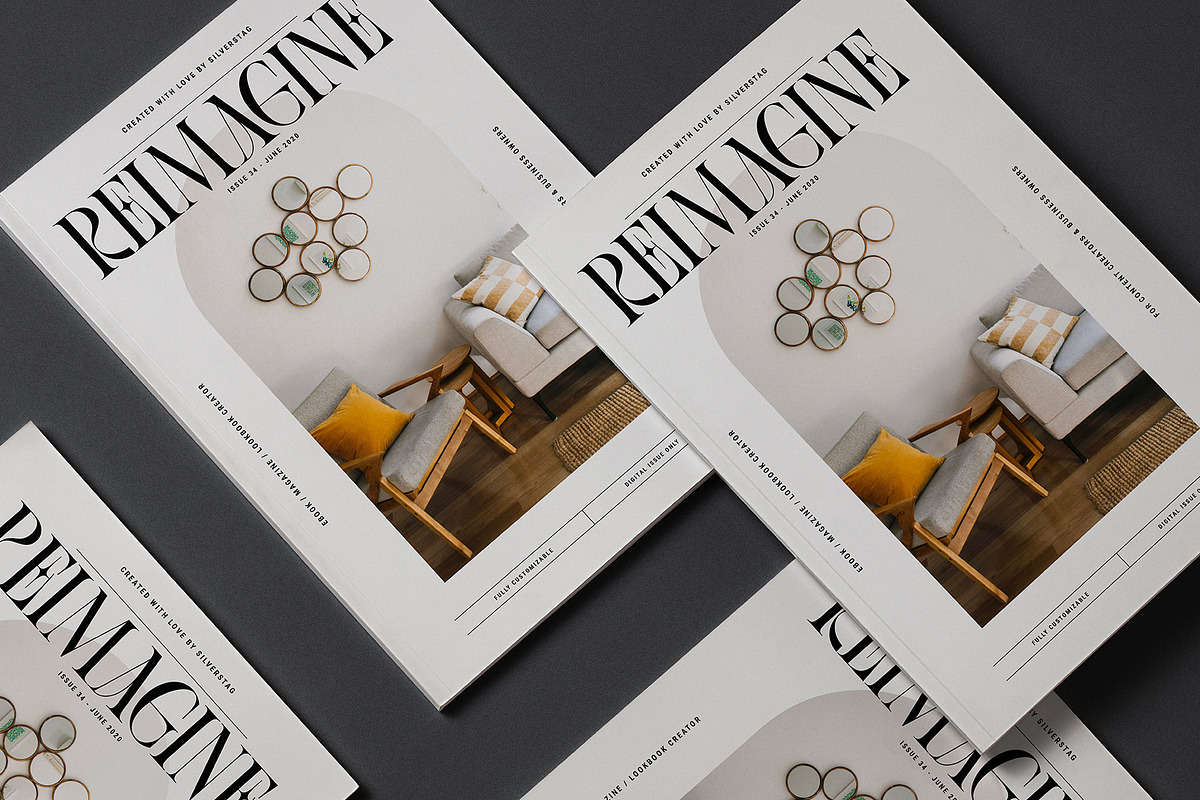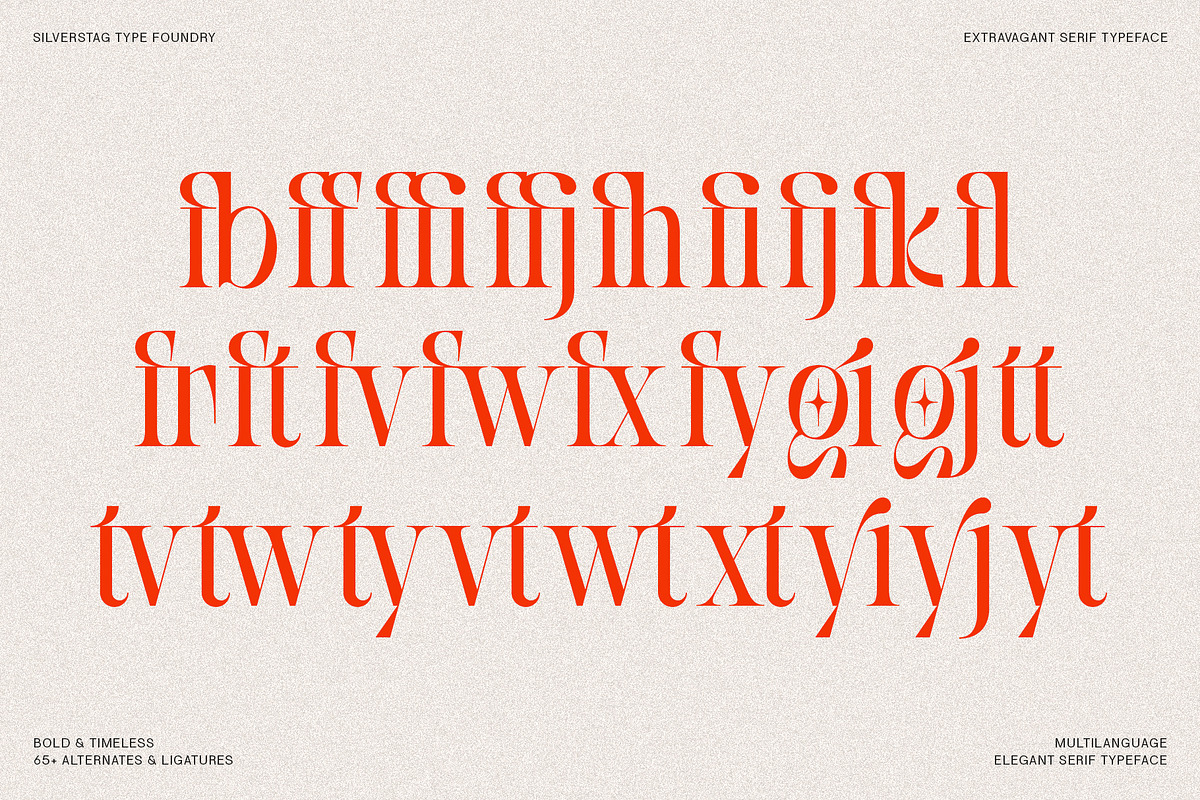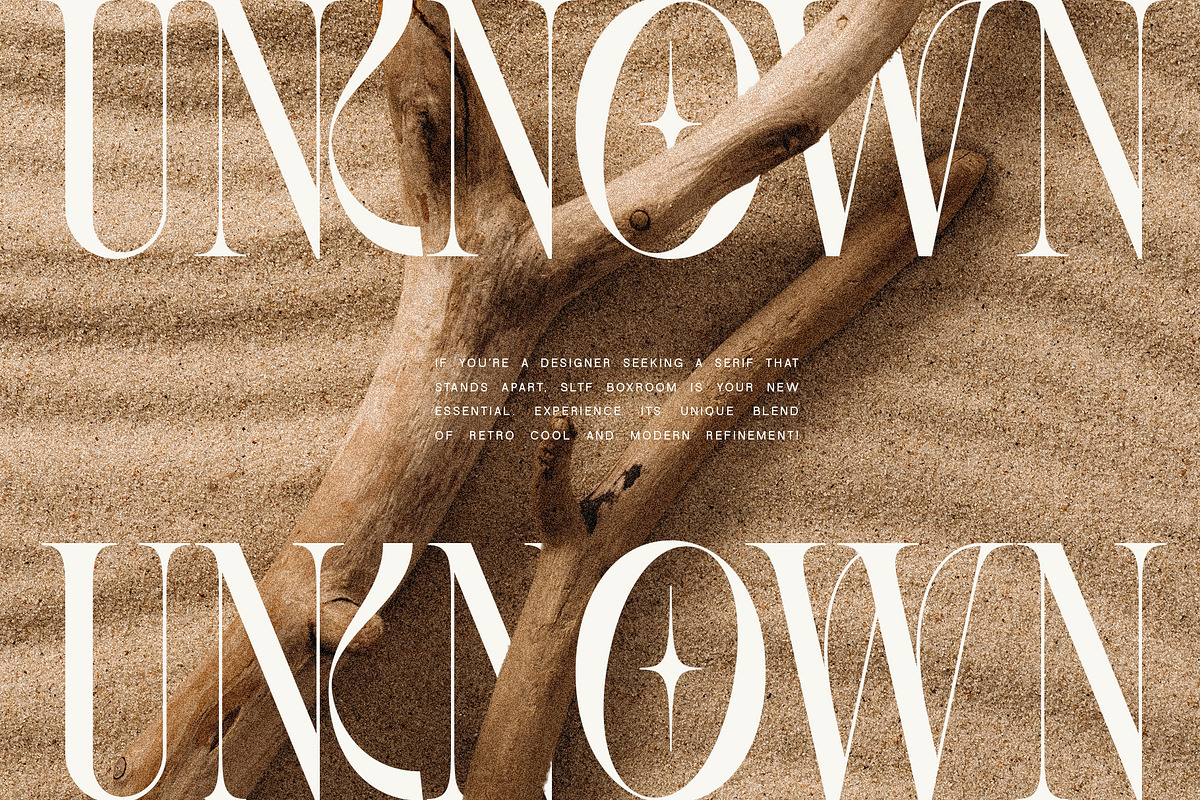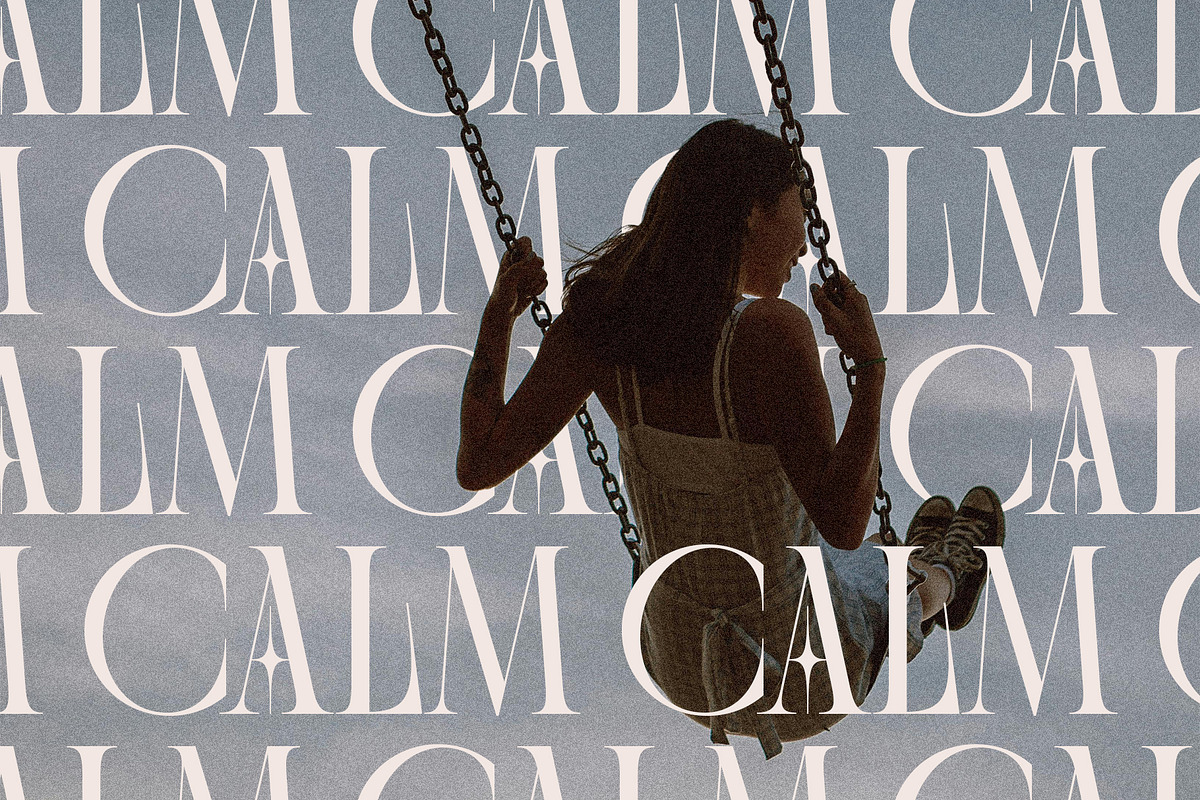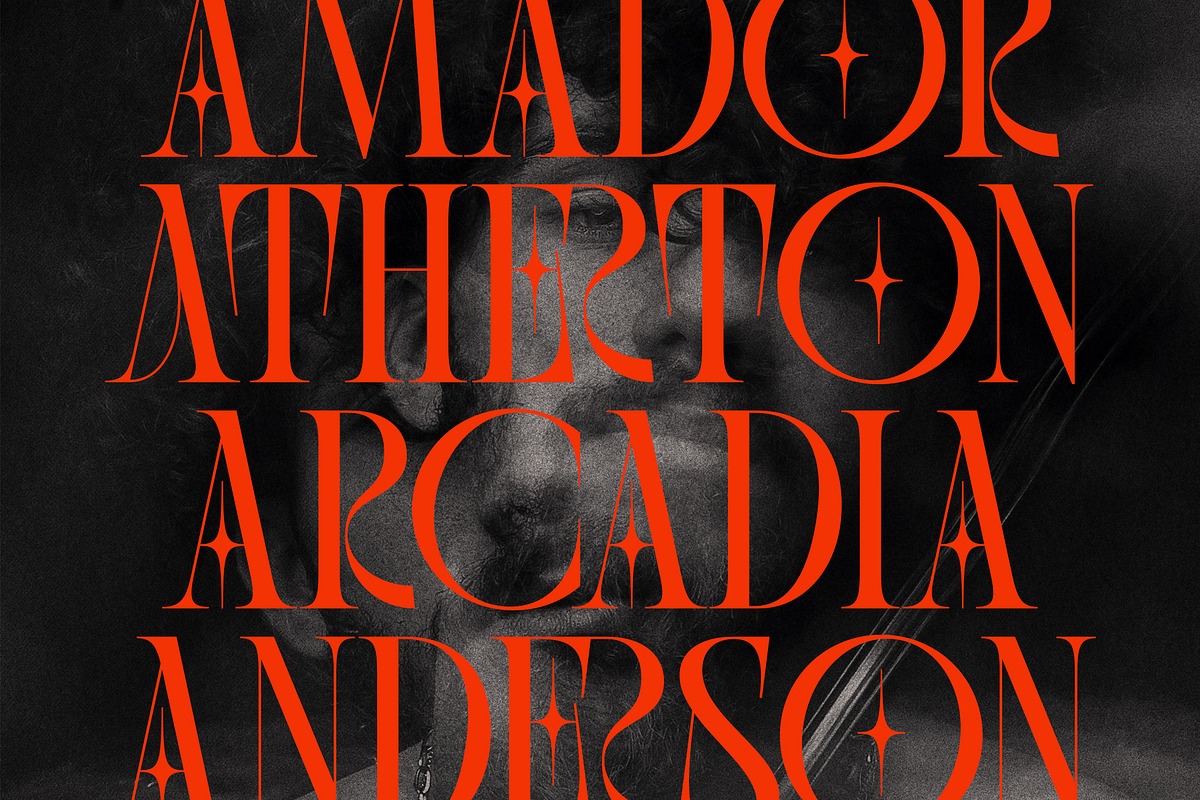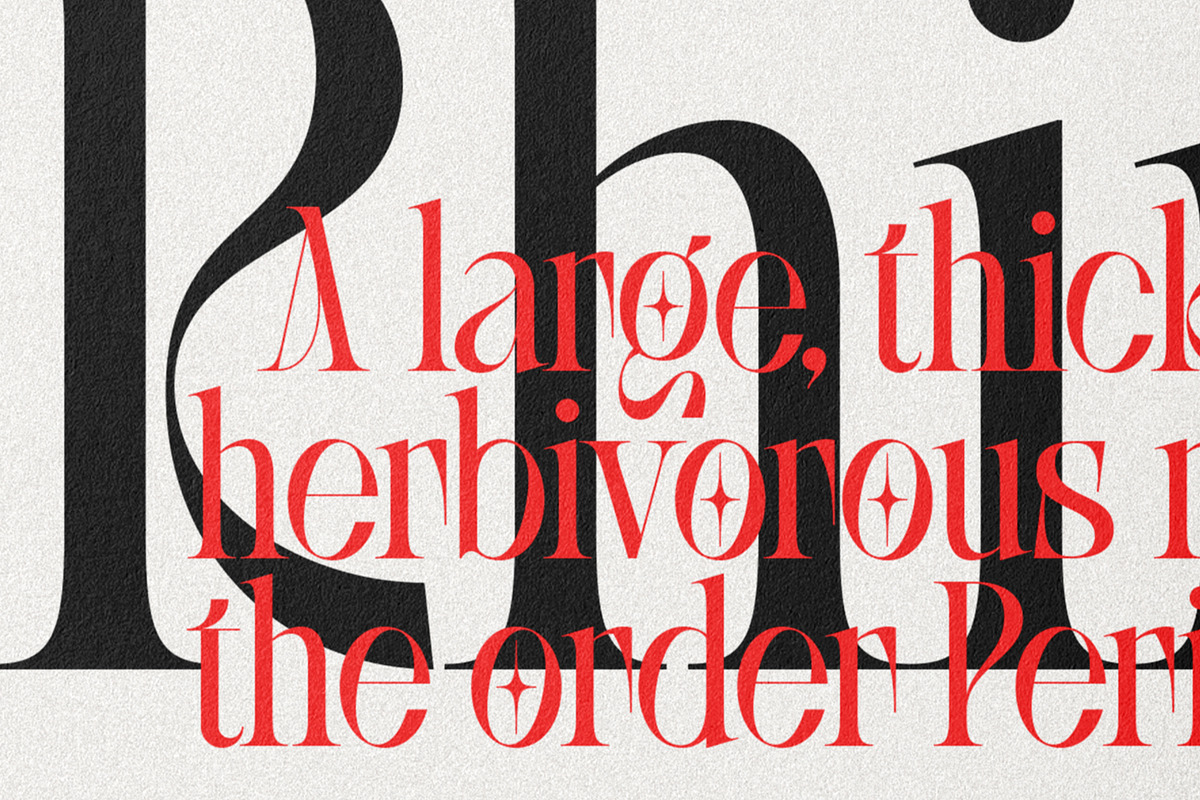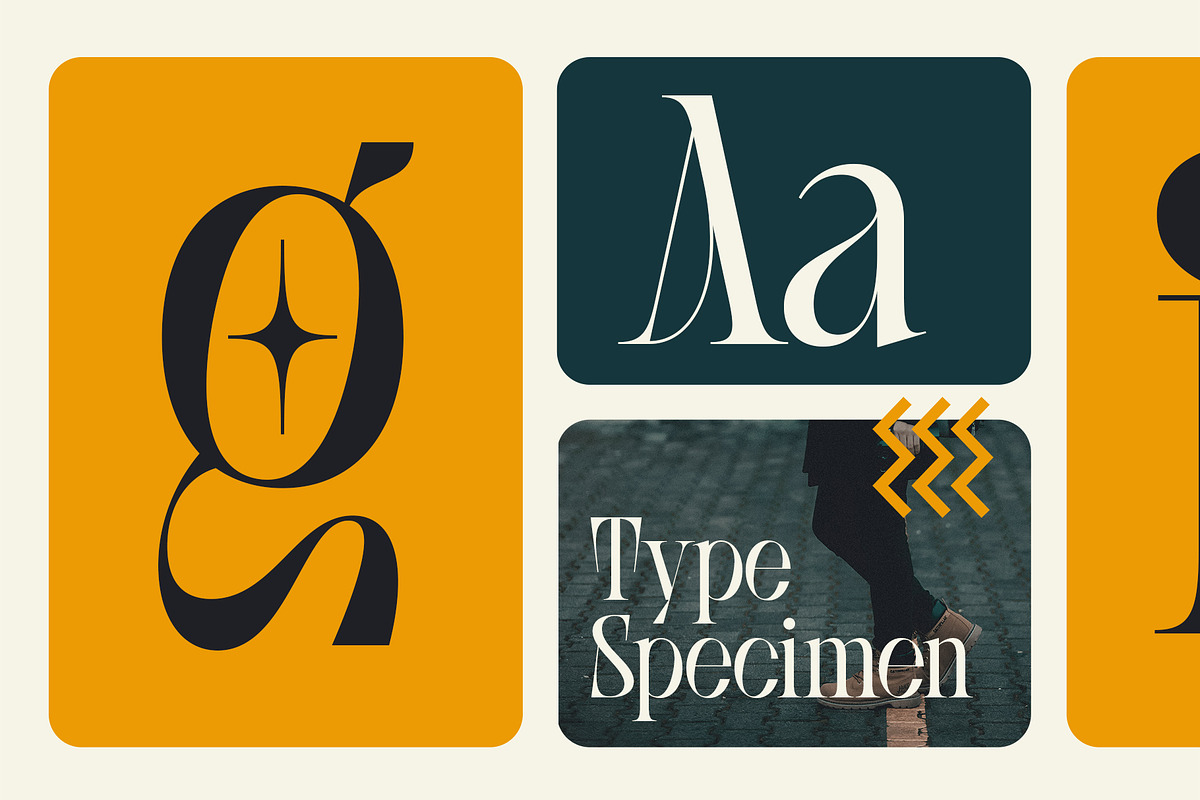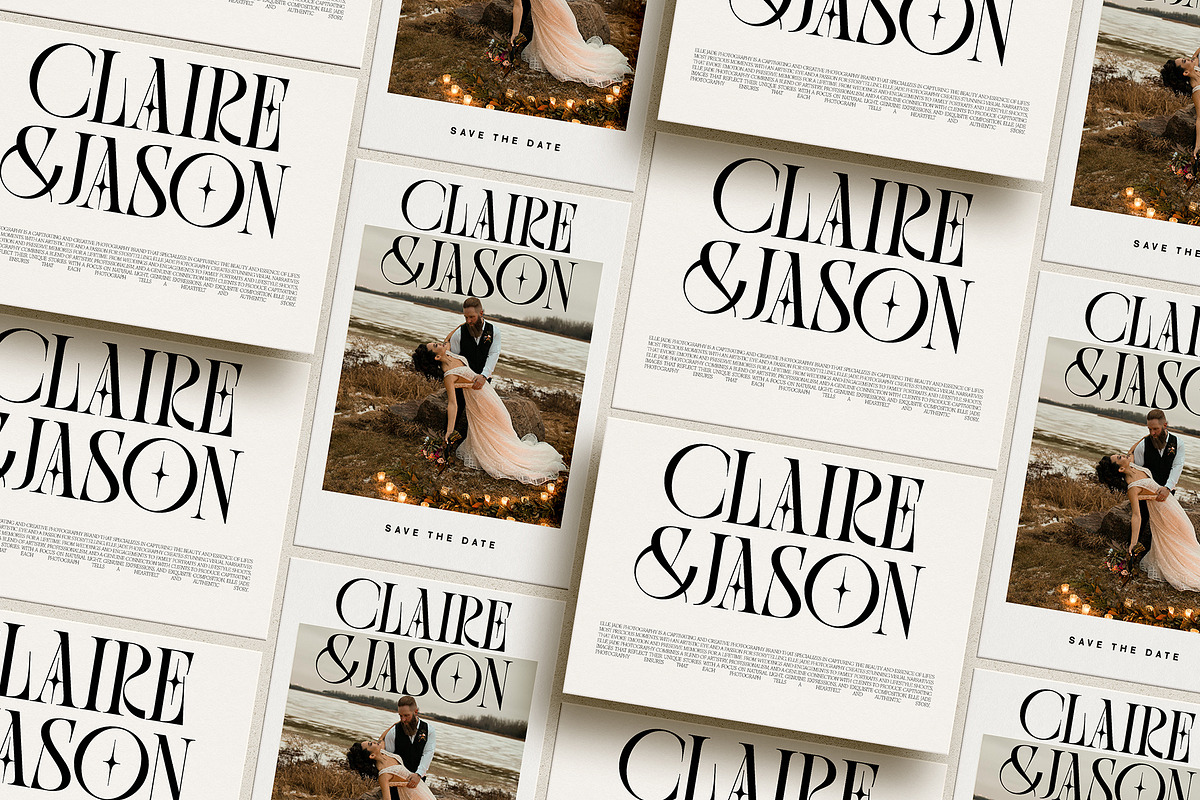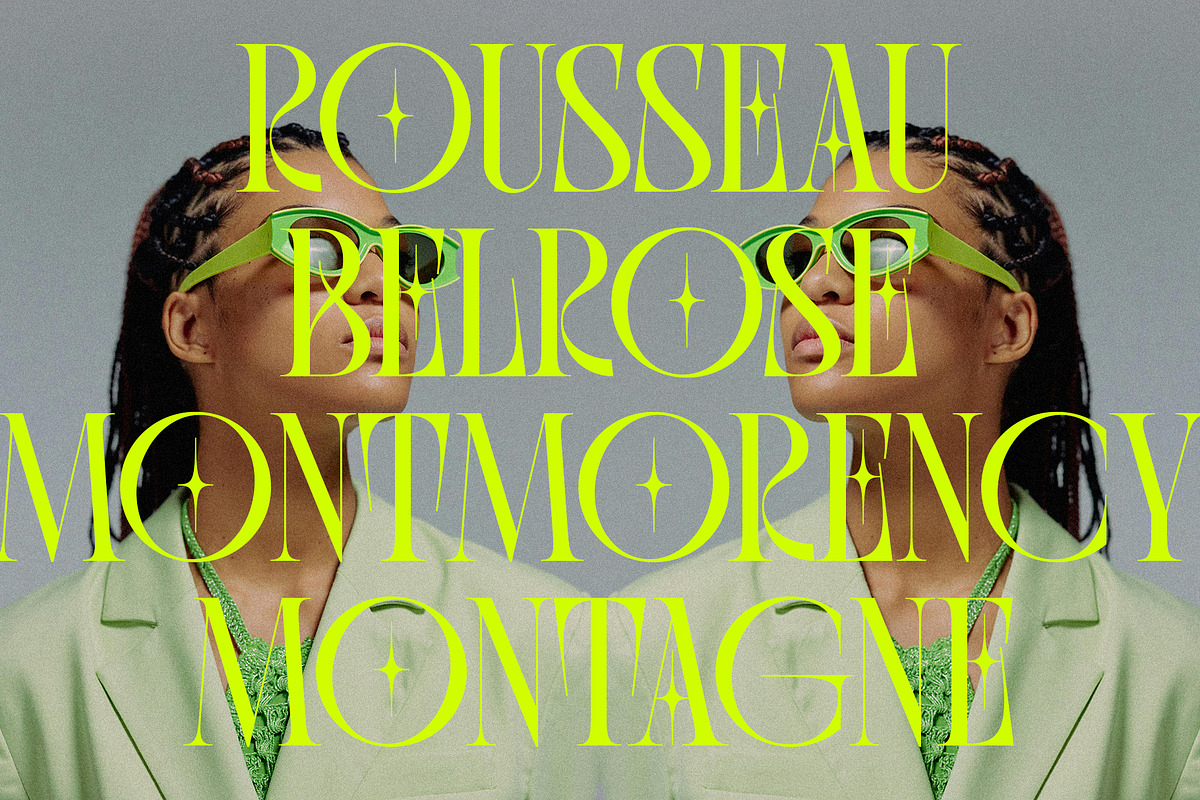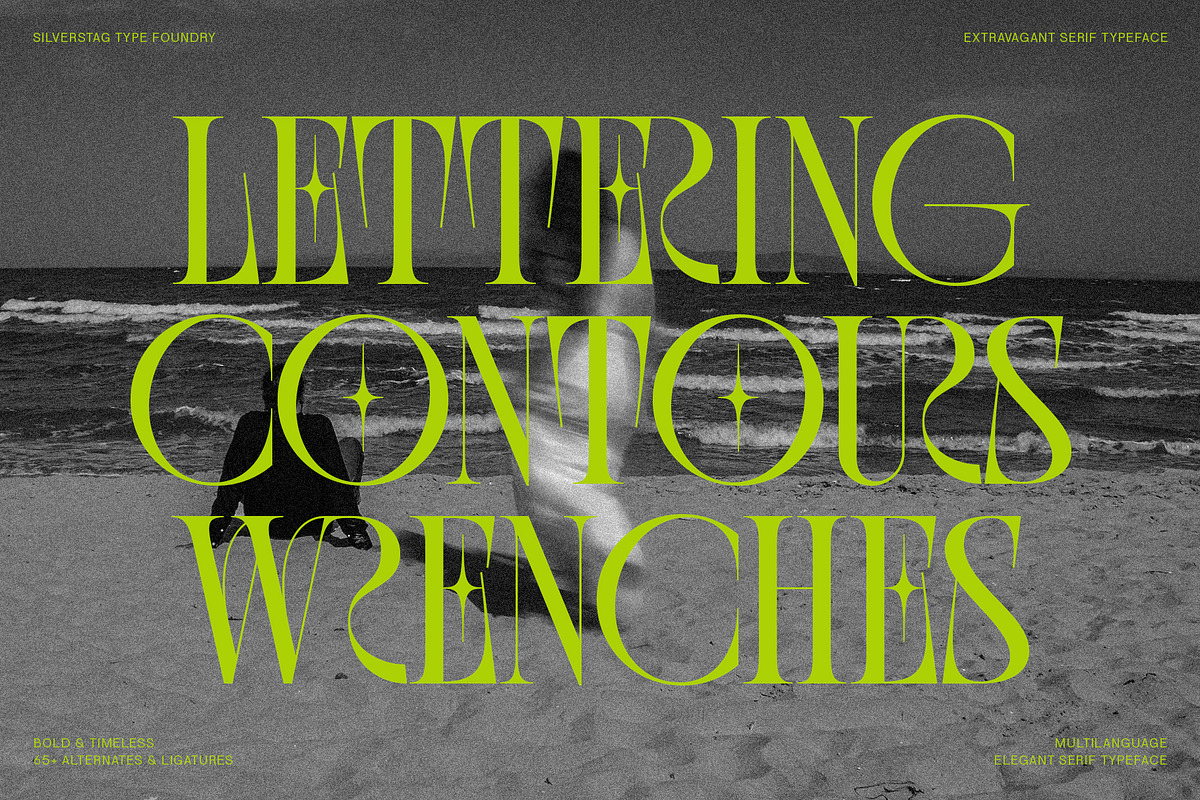
SLTF BOXROOM - Modern Serif Typeface
Introducing BOXROOM, a typeface that dares to be different. This isn't your average serif; it's a bold, expressive statement piece that's ready to elevate your designs with its unique blend of vintage elegance and modern flair.
Imagine those sharp, captivating serifs, like a perfectly tailored suit with a rebellious edge. And those cool little decorations on letters like O, Q, E, and F? They're like hidden gems waiting to be discovered, adding a touch of surprise and delight to every word.
But BOXROOM is more than just a pretty face. With over 65 ligatures and alternate letters, it's incredibly versatile, allowing you to create truly unique and captivating typography. And with support for over 400 languages, BOXROOM speaks to a global audience, making it perfect for any project that demands a touch of sophistication and a whole lot of personality.
Here's what sets BOXROOM apart:
- Expressive and Chic: BOXROOM is designed to make a statement. Its extended serifs and unique details create a look that's both elegant and edgy.
- Versatile and Adaptable: With a wealth of ligatures and alternates, BOXROOM can adapt to any design style, from classic to contemporary.
- Globally Inclusive: With support for over 400 languages, BOXROOM speaks to a diverse audience, breaking down communication barriers.
- Meticulously Crafted: Every detail of BOXROOM has been carefully considered to ensure readability, visual appeal, and a truly unique typographic experience.
Where BOXROOM shines:
- Branding and Logos: Create impactful and memorable brand identities that stand out from the crowd.
- Editorial Design: Elevate your magazine layouts, headlines, and article titles with a touch of sophistication.
- Packaging and Advertising: Capture attention with eye-catching designs that demand a second look.
- Website Design: Give your website a touch of personality and elegance that will captivate your visitors.
BOXROOM is more than just a font; it's a tool for self-expression. It's an invitation to break the mold and create something truly unique. So, go ahead, unleash your creativity, and let BOXROOM transform your designs into works of art.